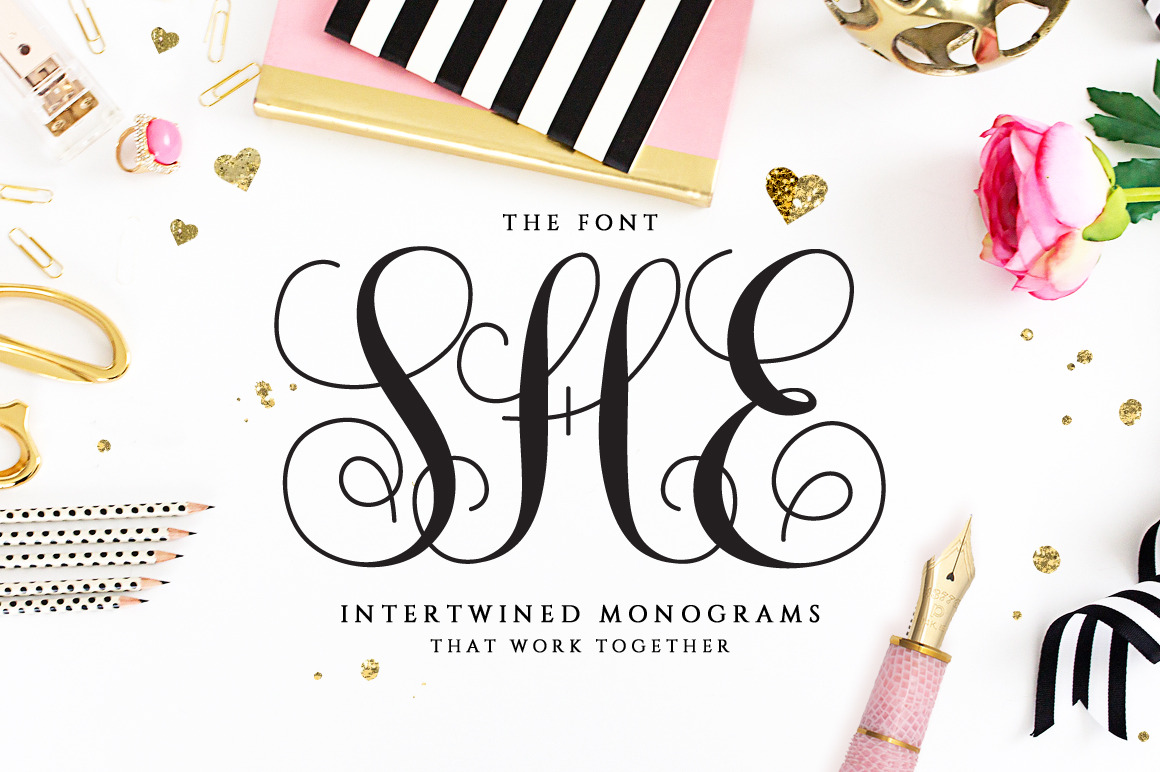
Interlocking Monogram Font
Monogram She is a beautiful intertwined monogram font. Each letter has being hand drawn with the purpose of making them join each other. This interwoven font looks great in personalized products like cards, mugs, shirts, cell phone cases, stationery. Needless to say, is PERFECT for weddings! Make invitations, favours, napkins, decorations or any project with initials.
- Uppercases, numbers, period and ampersand.
- Monogram She Regular
- Monogram She Intertwined